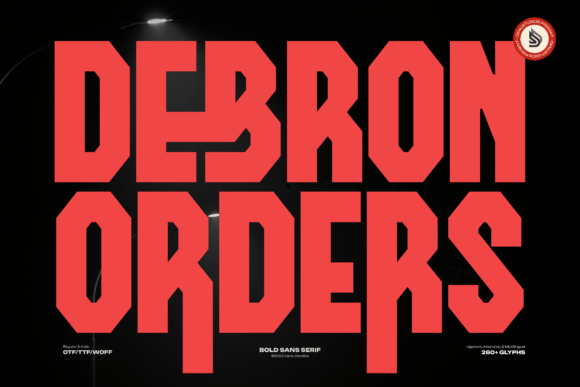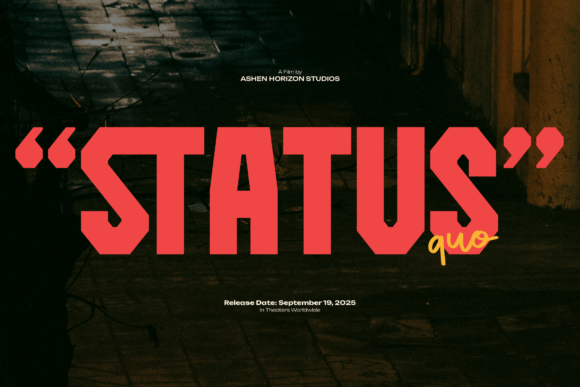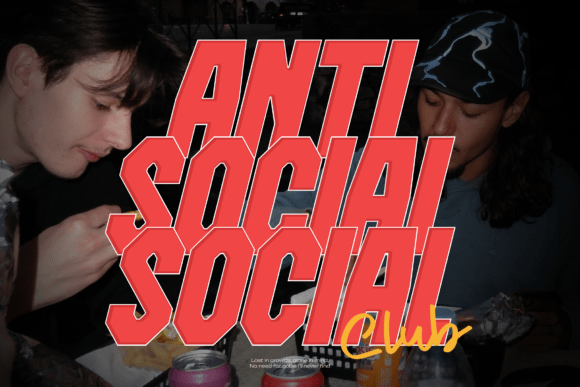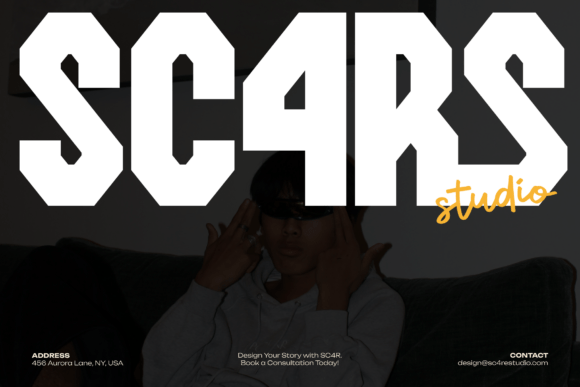
Debron Orders Font: A Bold Sans Serif for Impactful Headline Typography
About the Debron Orders Font
Elevate your designs with Debron Orders Font, a font that combines sophistication with readability. Debron Orders is a powerhouse of a typeface — a bold sans serif font built for maximum impact. Its rigid, geometric construction and sharp angular cuts convey authority and strength, making it ideal for headlines, branding, posters, and sports-themed designs. With a brutalist flair and futuristic undertones, Debron Orders demands attention while maintaining clarity and structure. Featuring over 260 glyphs, including ligatures, alternates, and multilingual support, this font delivers both style and versatility in OTF, TTF, and WOFF formats.
Debron Orders Font Usage Examples
Debron Orders Font Example